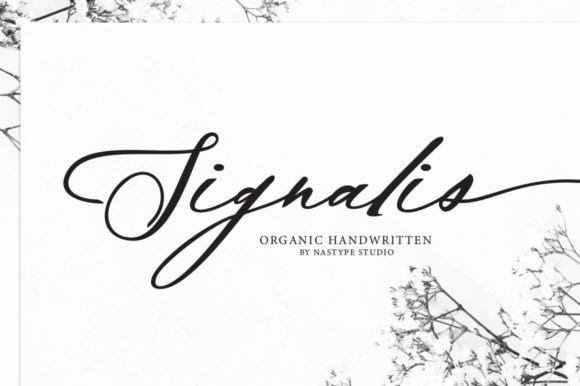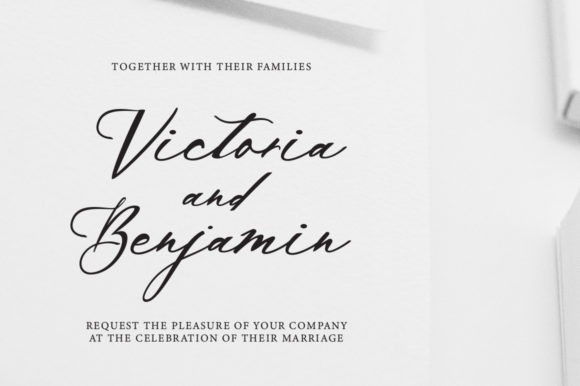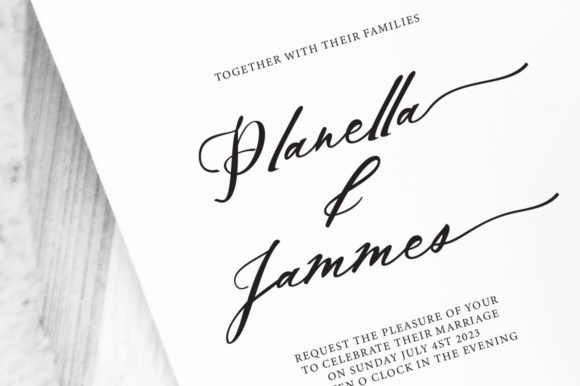
Signalis Font
Signalis is a simple script font that looks modern, chic, and fashionable. This elegant font is legible and looks great as a headline or in body text. This font is perfect for blogging, social media, branding, wedding invites, cards, etc.